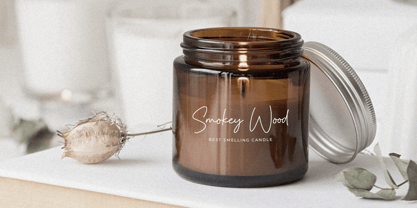
Challans
von Heinzel Std
Die Schriftfamilie Challans wurde von Nofi Sofyan Hadi entworfen und von Heinzel Std veröffentlicht. Challans enthält 1 Stile.
Challans is a flowing handwritten font, described by an elegant touch, perfect for your favorite projects. It looks stunning on wedding invitations, thank you cards, quotes, greeting cards, logos, business cards and every other design which needs a handwritten touch. Fall in love with its incredibly distinct and timeless style and use it to create spectacular designs!
Challans Features :
• Uppercase and Lowercase
• Numerical and Punctuation
• Multilingual Language
Designer: Nofi Sofyan Hadi